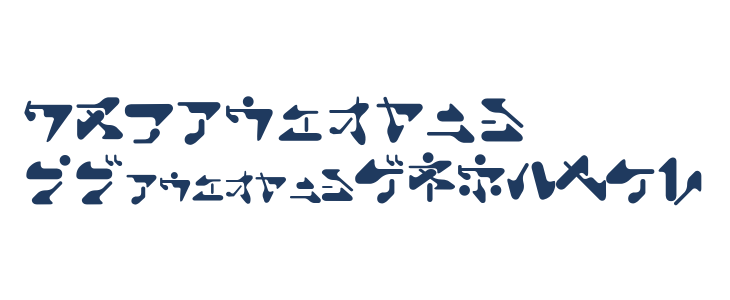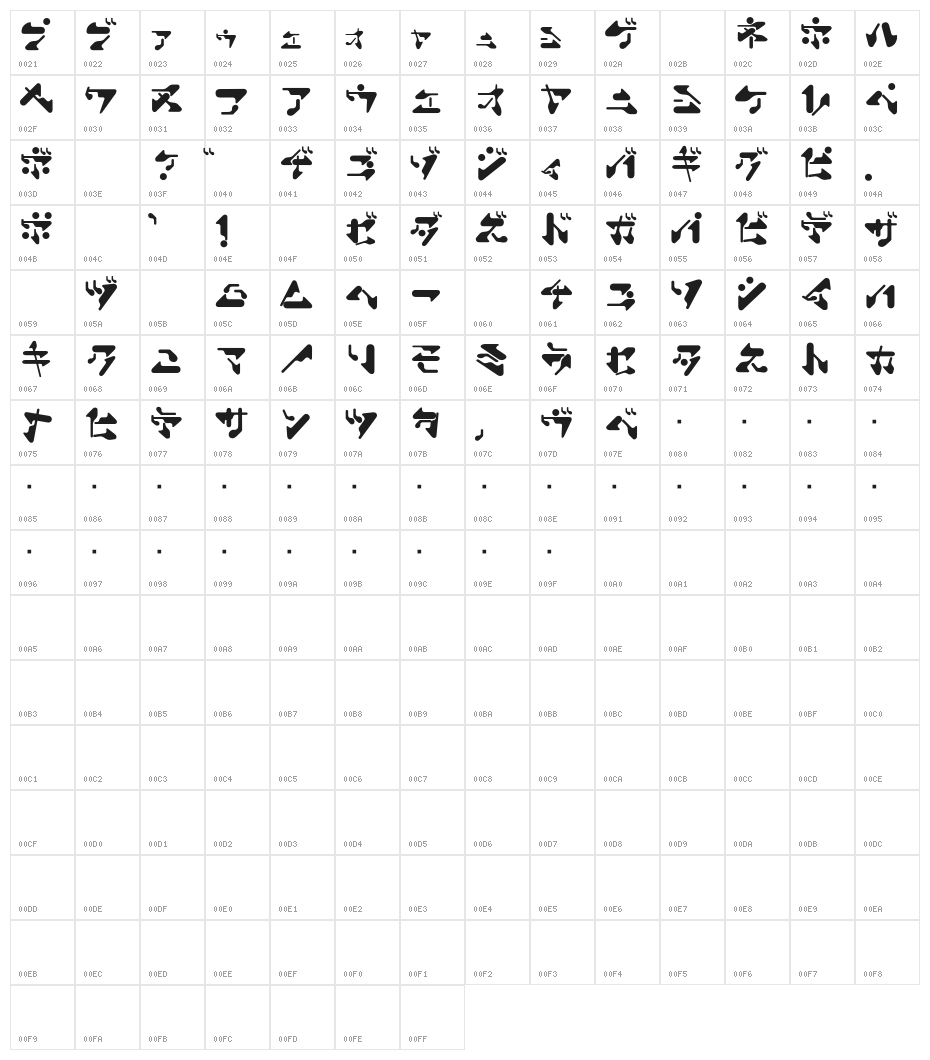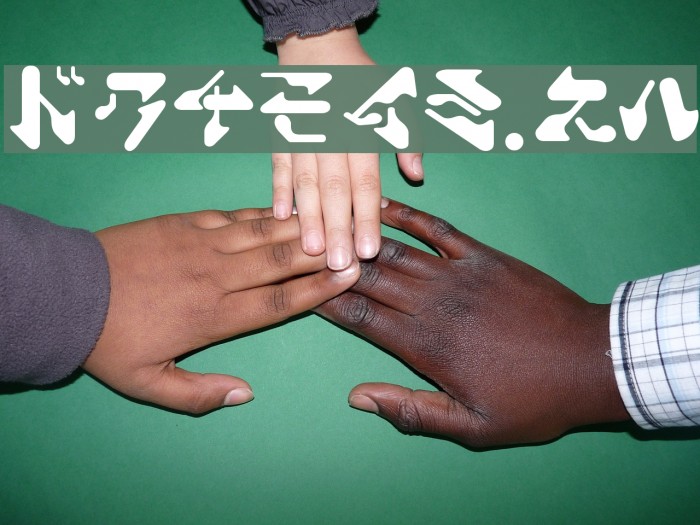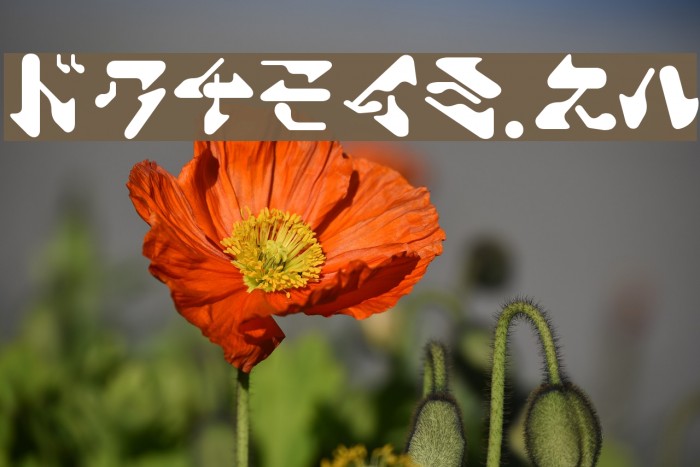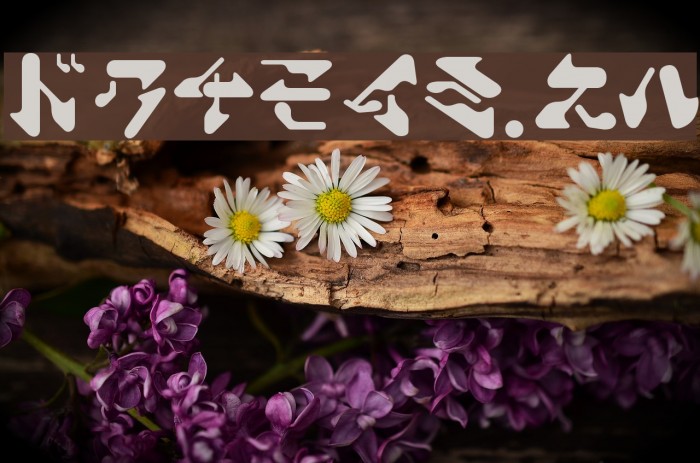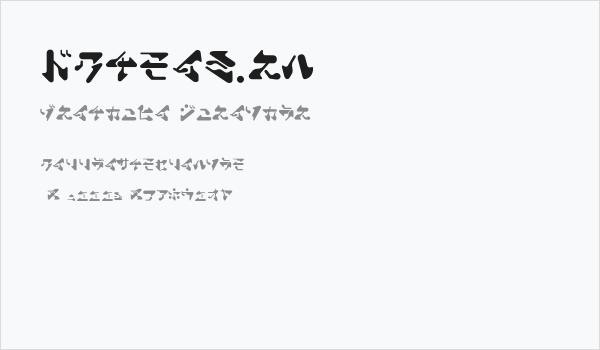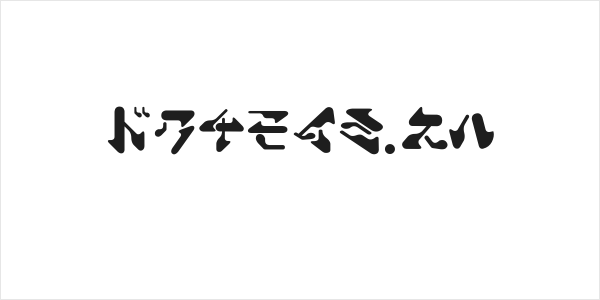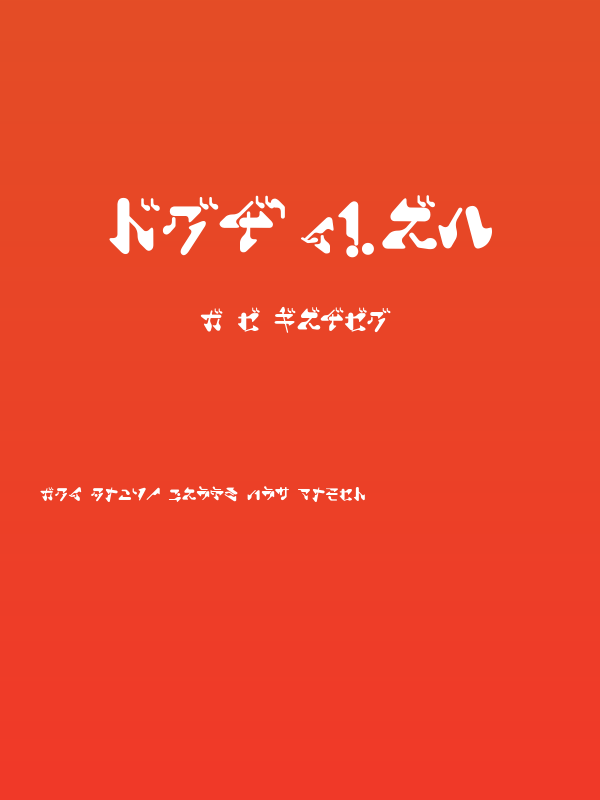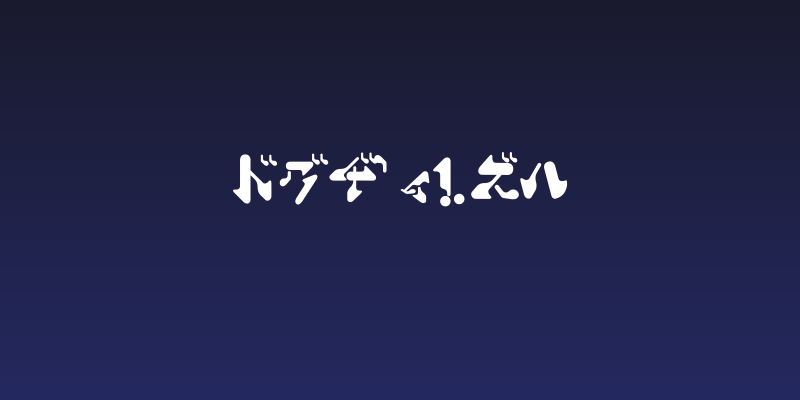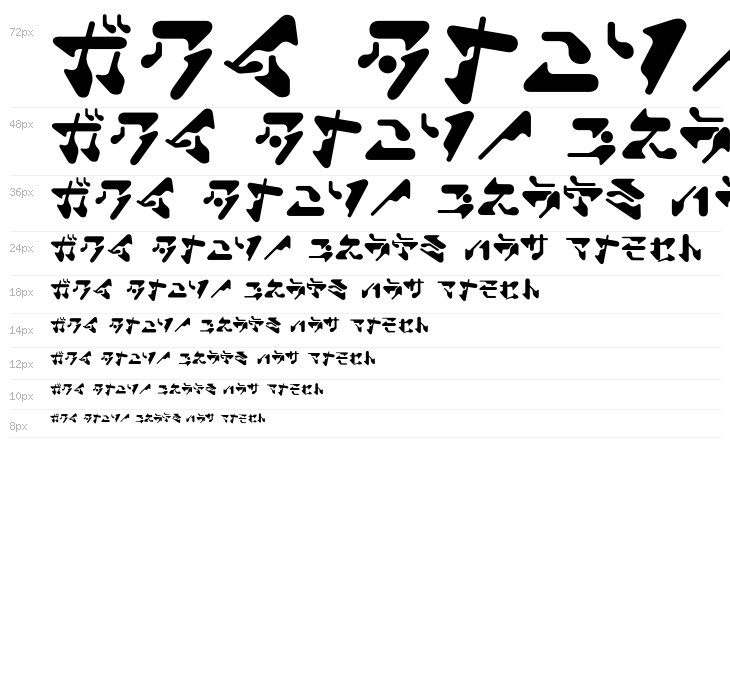
ShamenJr. Font
ShamenJr. Description
This font features a highly stylized and abstract design, reminiscent of futuristic or alien scripts. The characters are bold and angular, with unique geometric shapes that create a sense of mystery and intrigue. Each letterform is distinct, with sharp edges and varying line thicknesses that add to the overall complexity of the design. The font's aesthetic is both modern and unconventional, making it stand out as a decorative option for creative projects. Its intricate details and artistic flair suggest a theme of innovation and exploration, suitable for projects that aim to capture attention and evoke curiosity.
| Overall Style | Futuristic, Abstract |
| Use Case | Logos, Posters, Creative Displays |
| Proposed Projects | Ideal for sci-fi themed posters, video game graphics, or branding for tech startups. |